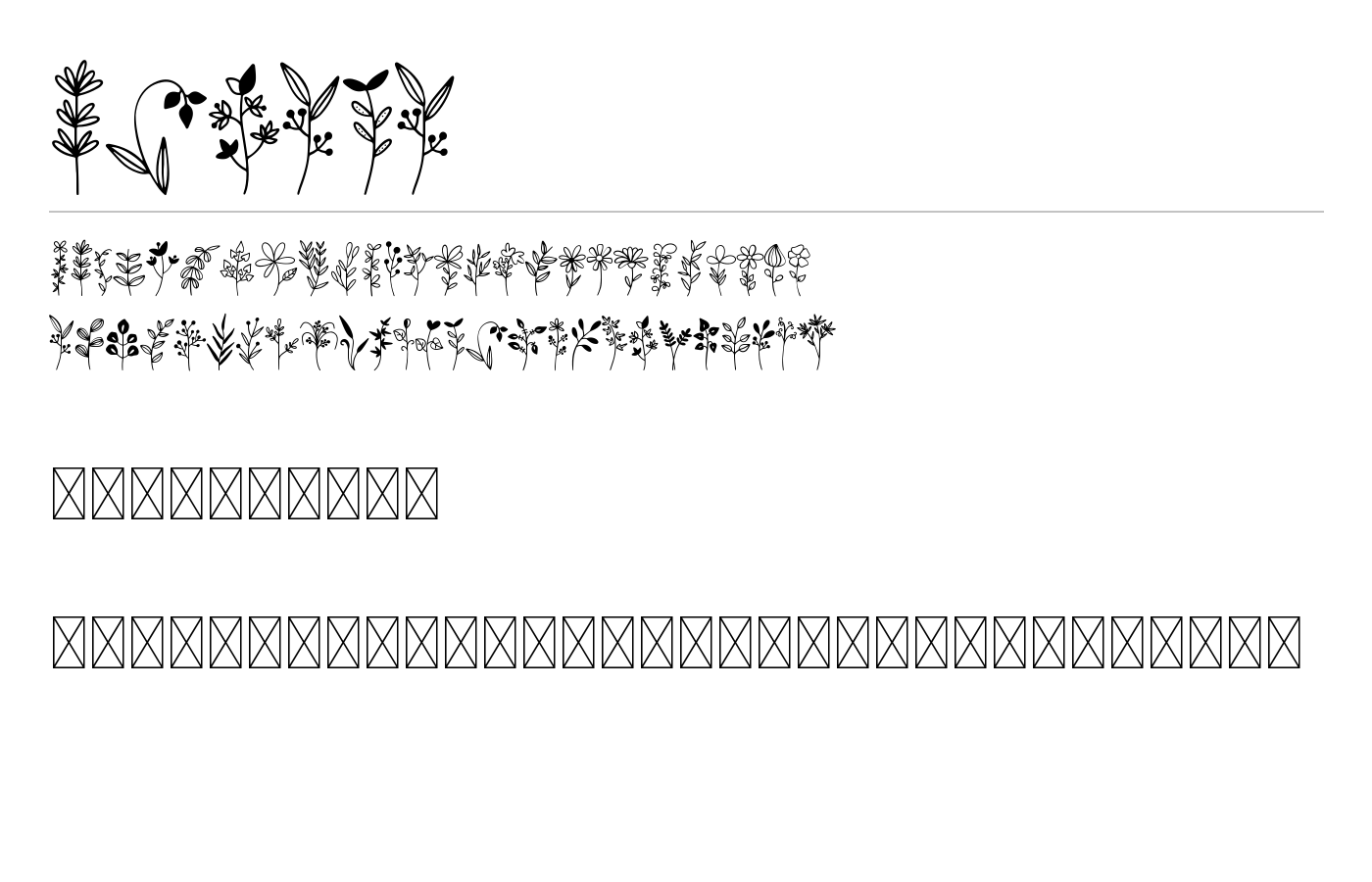
Botana Font is a whimsical and decorative typeface featuring delicate botanical illustrations instead of traditional letterforms. Its light, hand-drawn style with fine lines and playful plant motifs makes it perfect for creative projects needing a natural, organic touch such as invitations, branding for eco-friendly businesses, or artistic designs. This font adds a charming, artisanal feel that works beautifully in logos, packaging, and decorative headlines where a unique and botanical aesthetic is desired.
Botana Font
About Botana Font